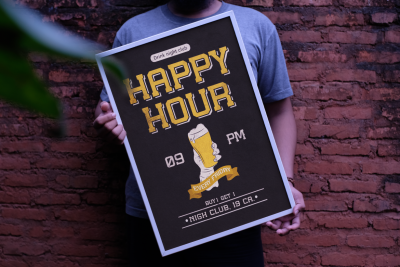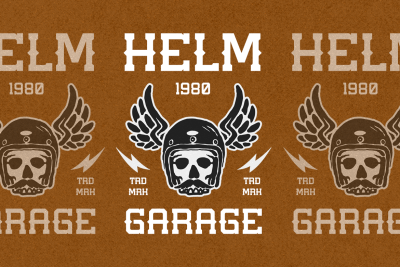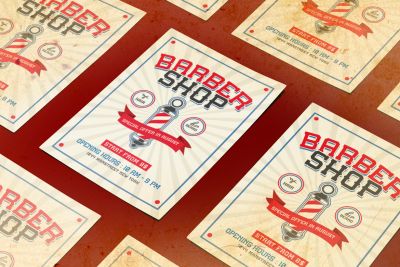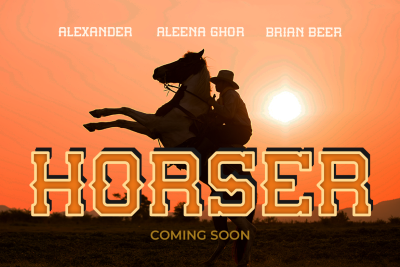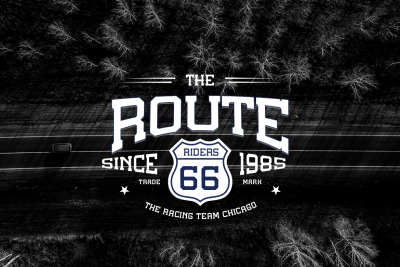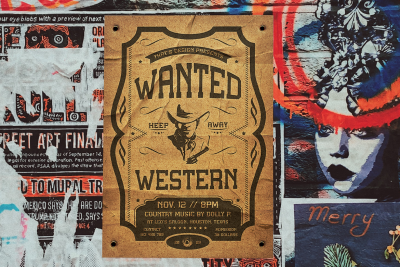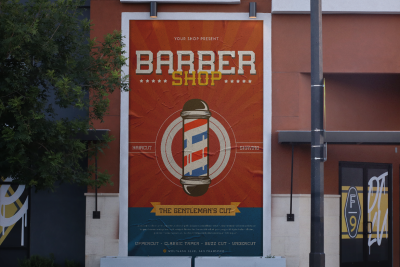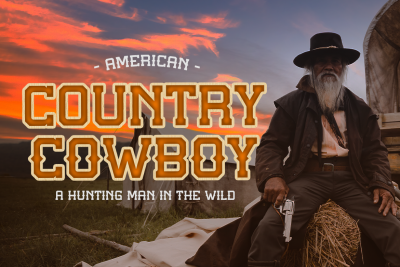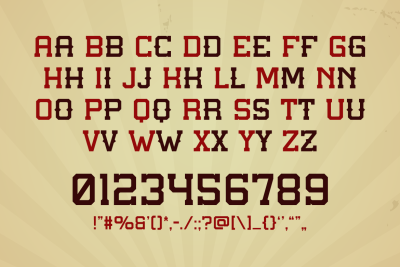
Western Font GUNSLINGER captures the rugged charm and bold spirit of the Wild West. With its sharp, clean lines and sturdy slab-serif design, it reflects the essence of Western culture and vintage Americana. Moreover, the bold lettering recalls saloon signs, wanted posters, and the grit of frontier life. Thus, it is ideal for creating designs with a rustic, adventurous, or historical feel. The typography conveys confidence and strength while also adding a sense of nostalgia. This unique blend, therefore, brings character and storytelling to your projects.
Additionally, GUNSLINGER is versatile and perfect for headers, logos, posters, and branding materials. Its wooden texture and cowboy-inspired style enhance themes of exploration, tradition, and heritage. Whether youโre designing for digital platforms or print, this Western font retains its charm and legibility. As a result, it adds an old-school flair to any creative work. Its boldness also ensures that designs are eye-catching, making it a practical choice for projects requiring immediate visual impact.
Not only does GUNSLINGER embody the Wild West, but it also adds a unique identity to designs. It blends rustic aesthetics with modern versatility, making it suitable for a wide range of uses. The fontโs carefully crafted details evoke a sense of craftsmanship and authenticity, which appeals to audiences looking for designs that tell a story. Consequently, GUNSLINGER provides the tools to create timeless and memorable designs.
GUNSLINGER is ideal for designers, marketers, and businesses aiming to evoke the Wild West. In particular, its bold style works well for brands in entertainment, especially those producing Western-themed movies, TV shows, or games. Furthermore, restaurants and breweries can use it to emphasize tradition and handcrafted quality. It is especially great for creating menus, labels, and signage.
Similarly, event organizers of festivals or country-themed gatherings will find GUNSLINGER perfect for promotions. It gives materials a distinctive, thematic edge. Moreover, graphic designers can use it for custom illustrations, apparel, or vintage posters. For instance, it works wonderfully in creating merchandise for rodeos, cowboy events, or music festivals with Western themes. Its bold, eye-catching style ensures that designs stand out, even in busy or competitive visual spaces.
Ultimately, GUNSLINGER appeals to anyone seeking visuals with a timeless Western personality. Small businesses looking to establish a unique brand identity will benefit greatly from its distinctive character. Hobbyists, including DIY crafters, can also use this font to elevate their projects, such as invitations, decorations, or scrapbooks. Whether you are a professional or a creative enthusiast, GUNSLINGER empowers you to create designs that captivate and inspire.